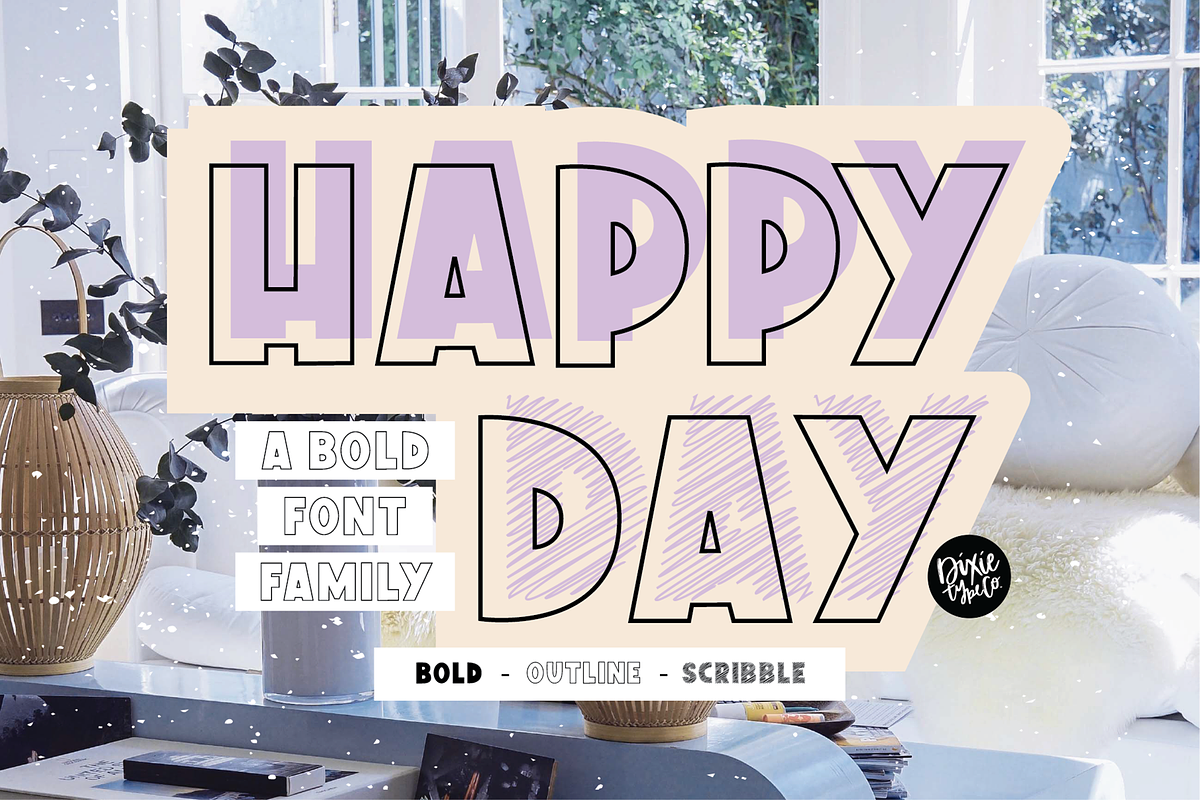
HAPPY DAY a Bold Font Family Free Download
HAPPY DAY - A Bold Font Family Free Download
HAPPY DAY - A Bold Font Family Free Download is a striking and energetic typeface family designed to make a bold statement in any design. With its strong, clean lines and powerful presence, this font is perfect for creating impactful logos, headlines, posters, branding, and social media content. The bold weight ensures visibility and clarity, making it ideal for high-energy projects that demand attention. Whether you're designing for a modern brand, an event, or a creative campaign, HAPPY DAY - A Bold Font Family Free Download offers versatility in both print and digital formats. Experiment with its dynamic style in personal projects before purchasing a commercial license, and elevate your designs with this bold and expressive font family.